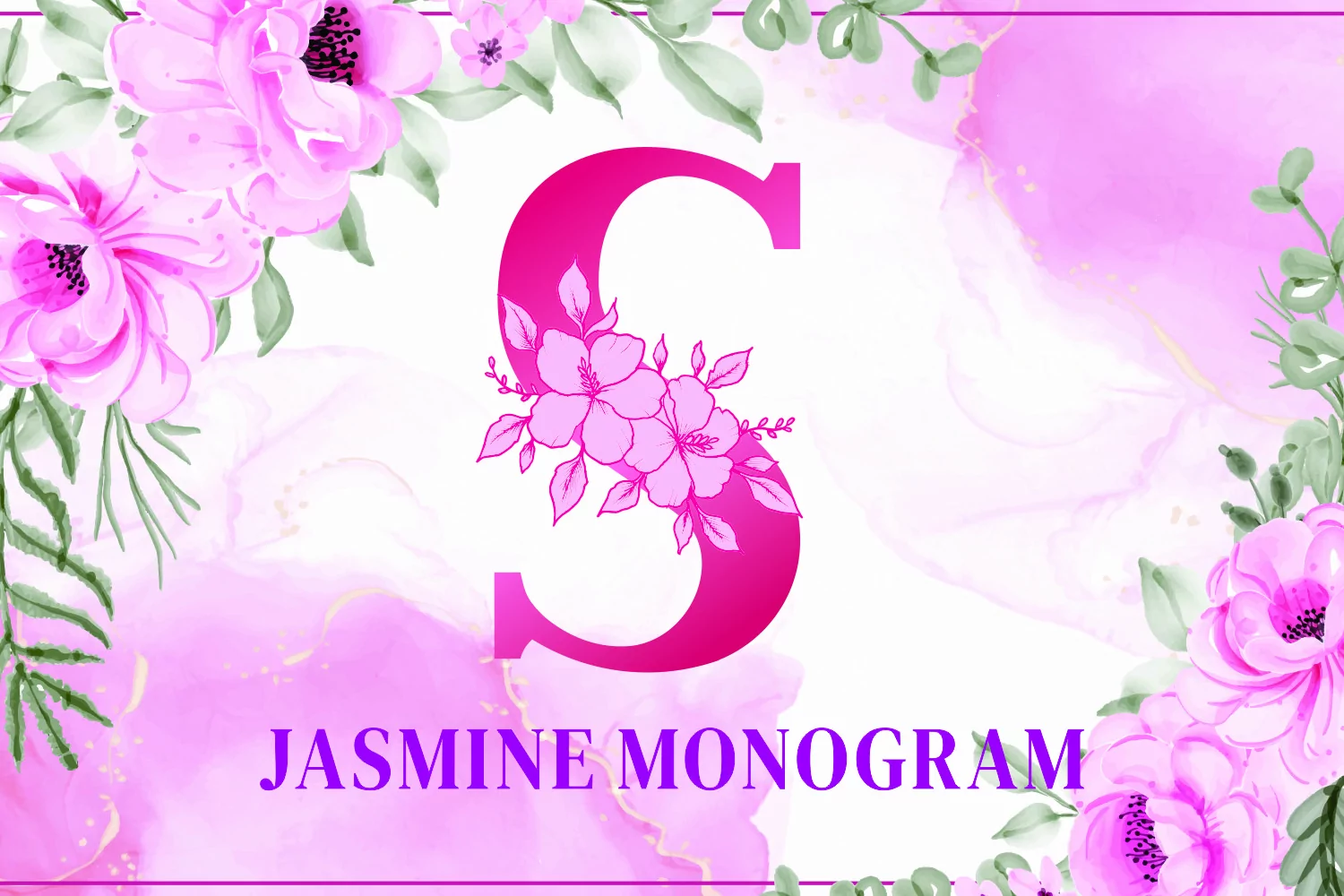
Proudly present " Jasmine Monogram "
This monogram fonts is ideal for crafting, branding and decorate your any project.
This fonts are perfect for wedding invitation or your blog.
Also with their help, you can create a logo or beautiful frame for your home.
Fall in love with its incredibly versatile style and use it to create spectacular designs!
Use this font for any crafting project that requires a personalized look!